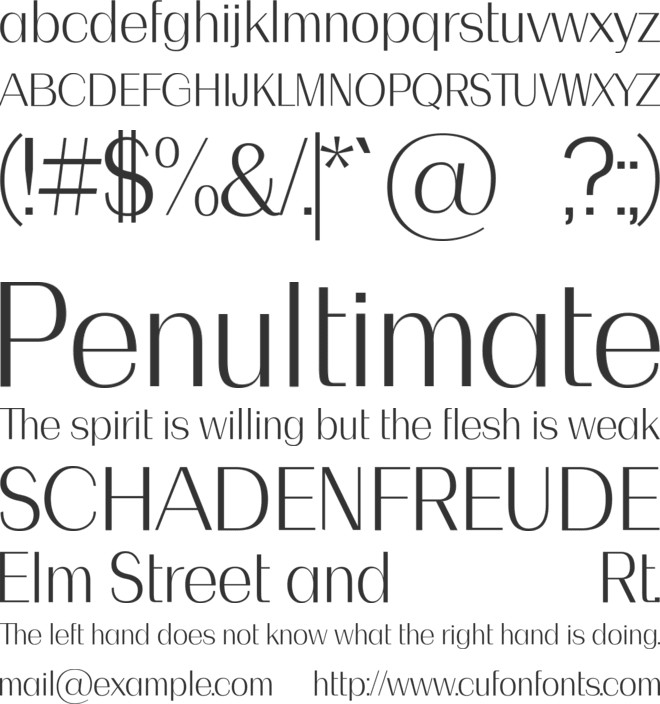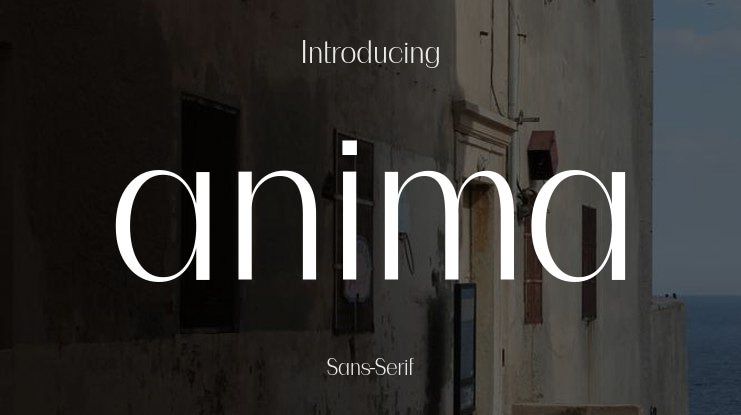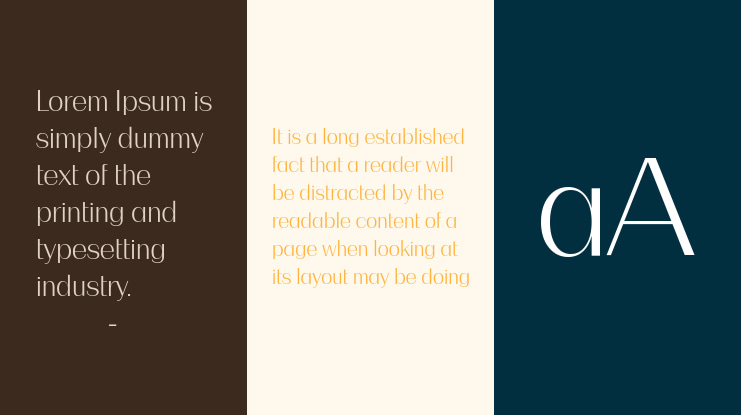
anima Font Family
Anima is a minimalist sans serif with soft clarity and multilingual support—perfect for lifestyle branding, editorial layouts, and modern packaging.